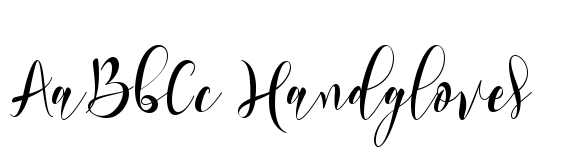
Restine
by Yoga Letter
The Restine Font Family was designed by Isroni Yoga Prasetya and published by Yoga Letter. Restine contains 1 styles. More about this family
"Restine" is an elegant and beautiful handwritten font. This font is equipped with uppercase, lowercase, ligatures, swash, titling, numerals, punctuation, and multilingual support. Very suitable for weddings, Christmas, engagements, posters, stickers, banners, branding, and others.
Designers: Isroni Yoga Prasetya
Foundry: Yoga Letter